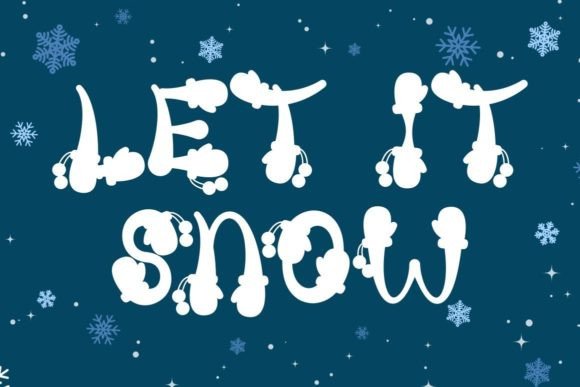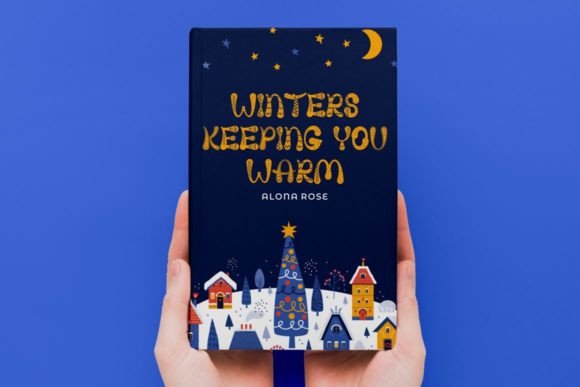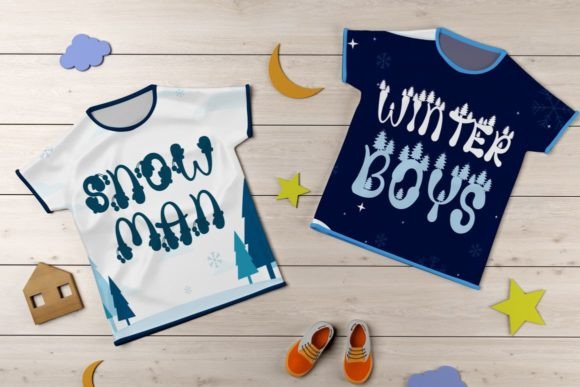
Introduction to Snow Away Font
Snow Away is a quirky Winter-themed display font.
It has multiple variations which can help you create incredible Christmas projects .
Key Features of Snow Away Font